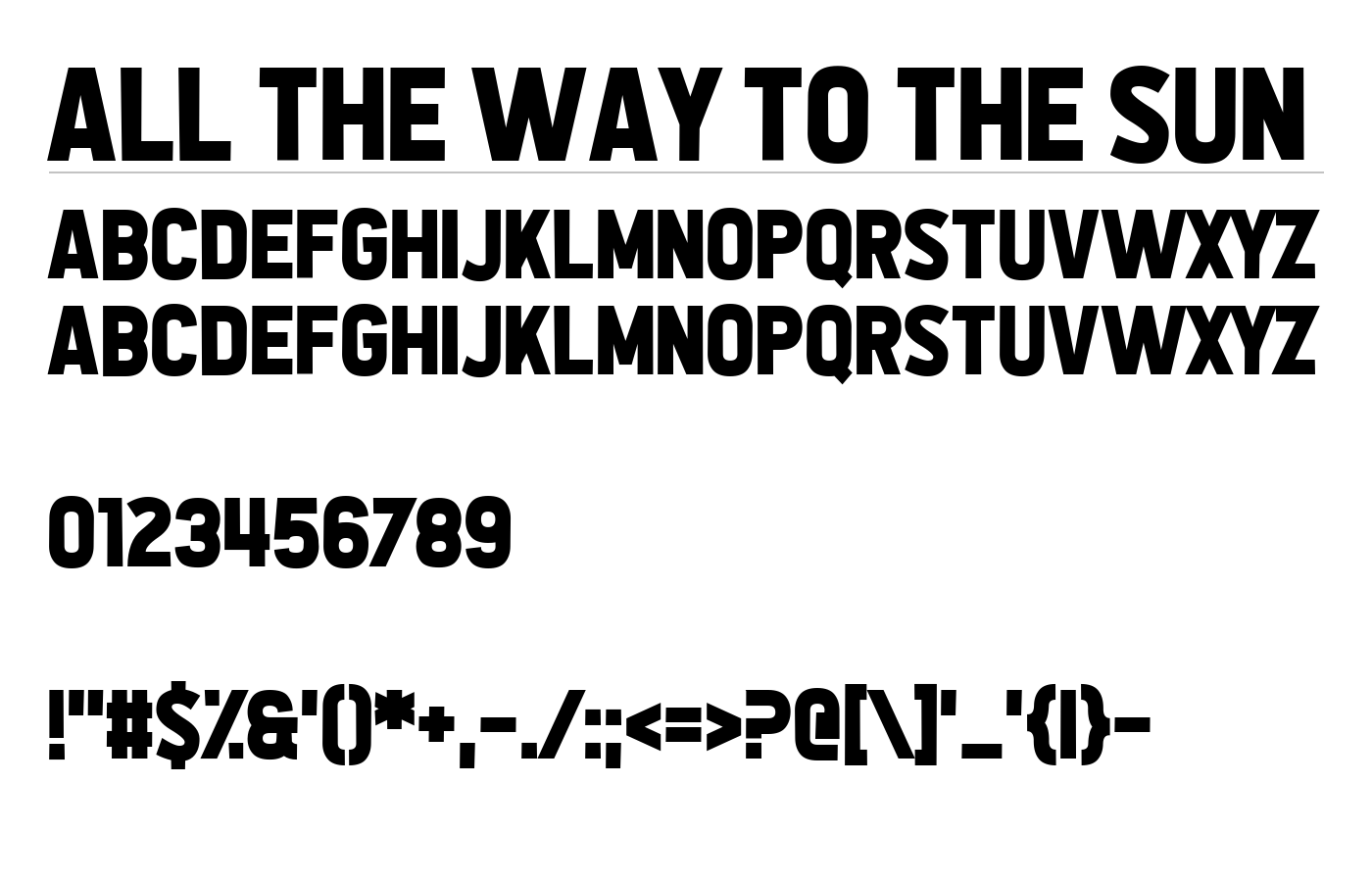
All the Way to the Sun is a bold, condensed sans serif font with a strong, modern presence. Its tall, uniform letterforms and tight spacing give it a confident, impactful feel, making it ideal for headlines, branding, and display use where attention-grabbing clarity is key. This sturdy typeface works well for dynamic, contemporary designs that need a bold statement without sacrificing legibility.
All the Way to the Sun Font
About All the Way to the Sun Font
| Font family | All the Way to the Sun Font |
| Designer | NAL |